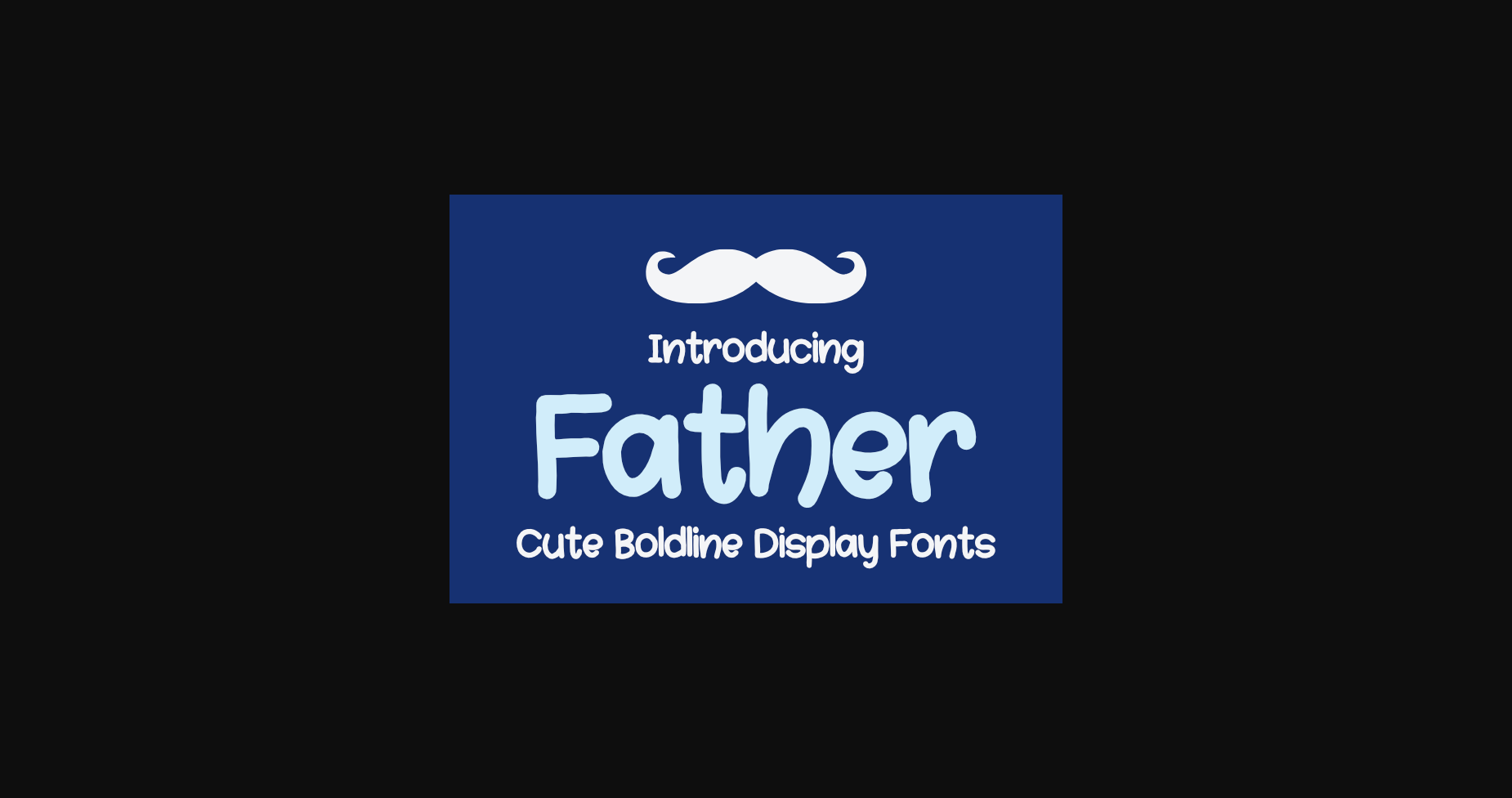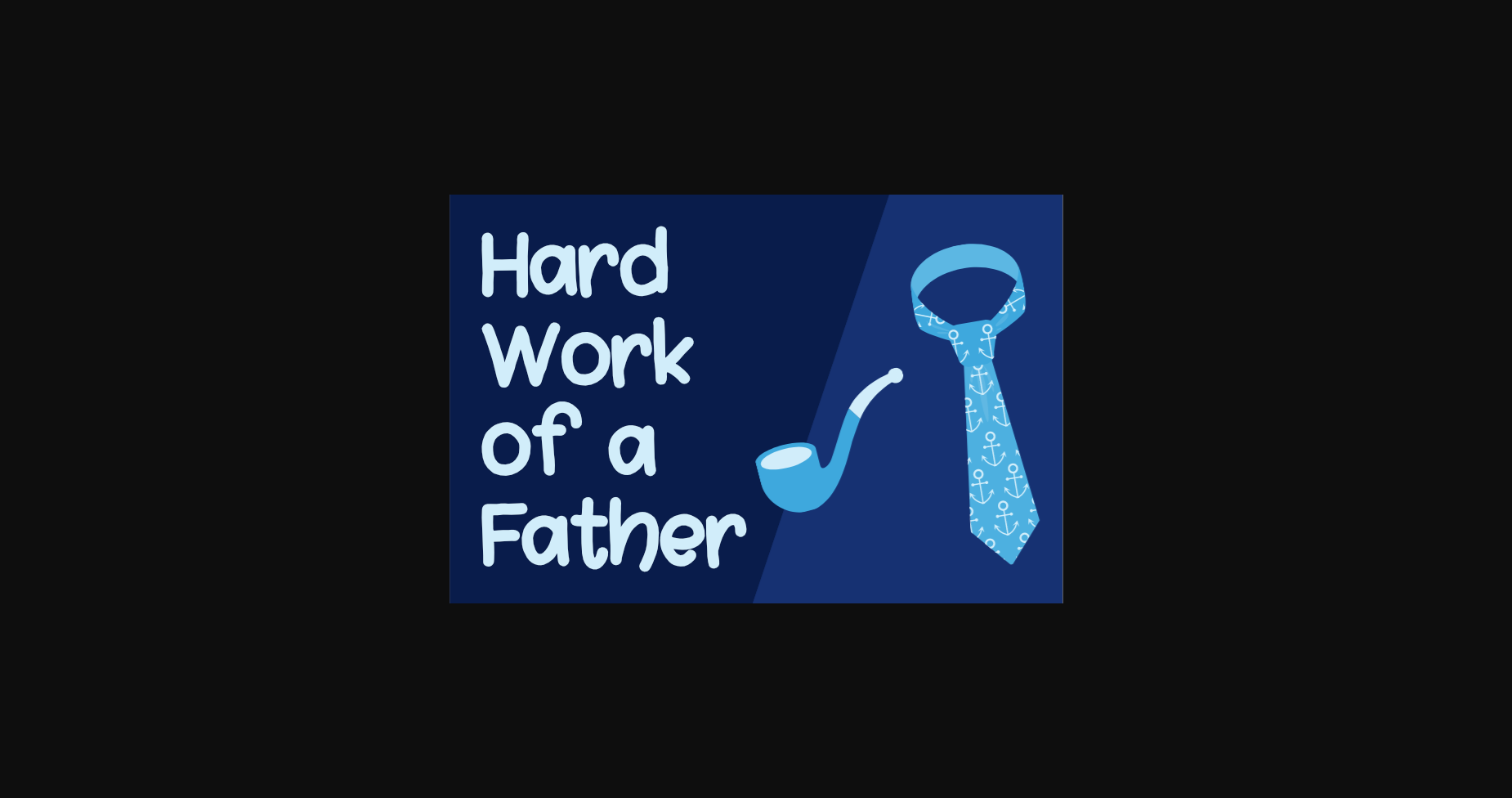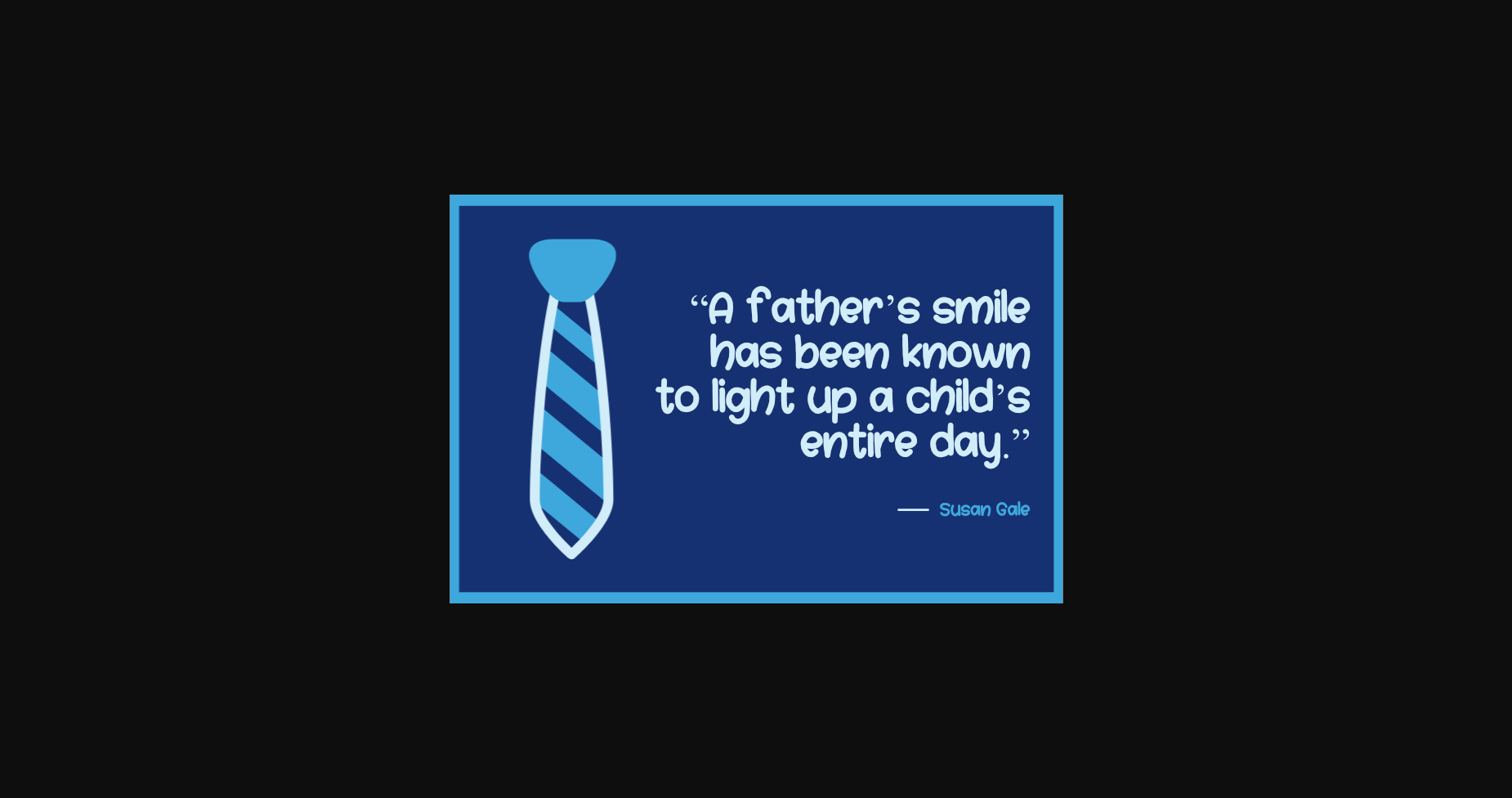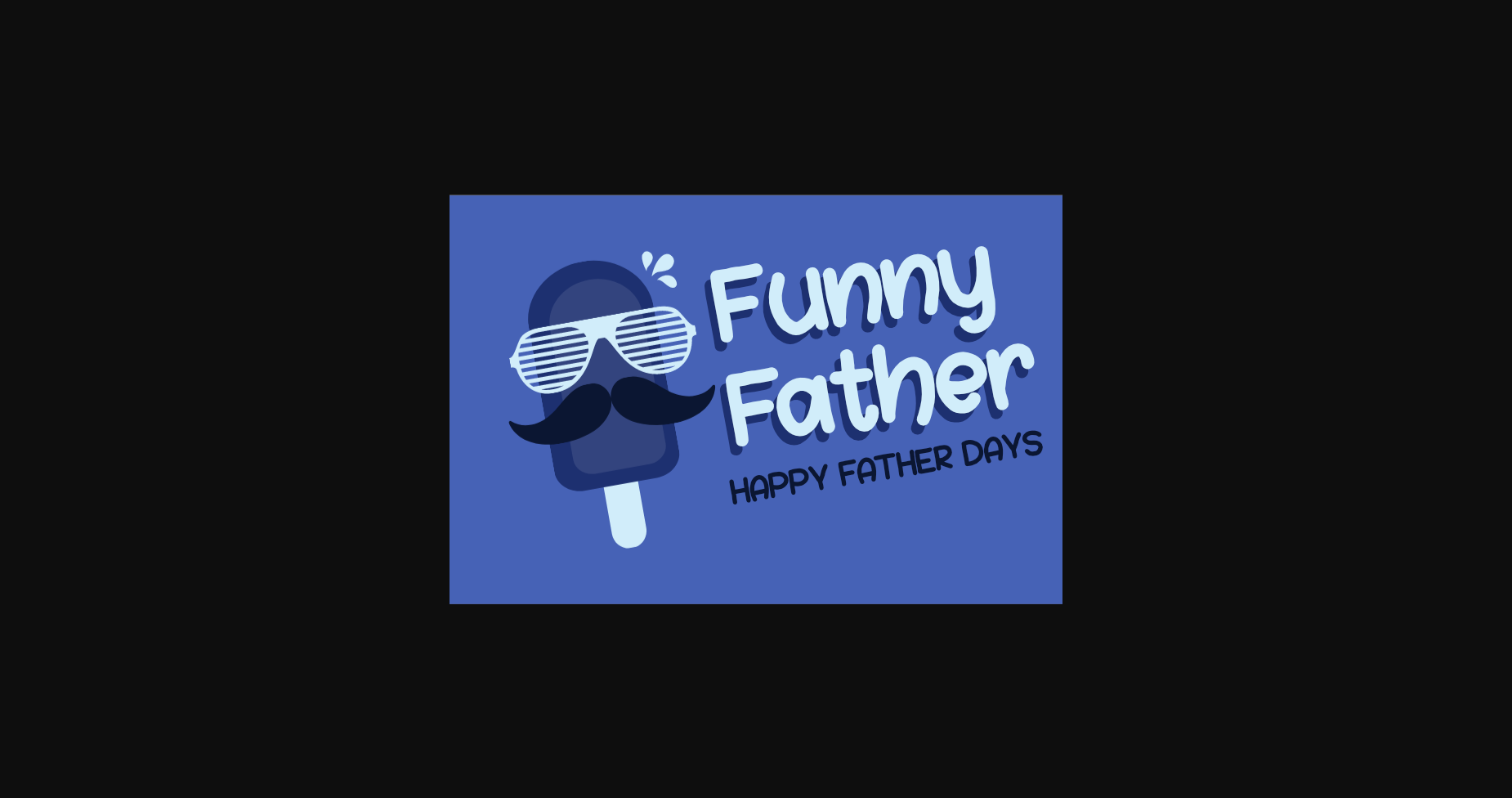
About Father Font
Father is a lovely sans serif font with a cute, bold outline style. This font was created on the theme of Father’s Day as a family hero, and it is perfect for food products, book titles, T-shirts, crafts, circuits, and many other purposes!